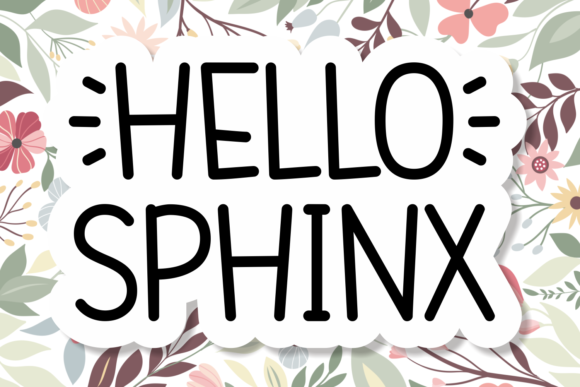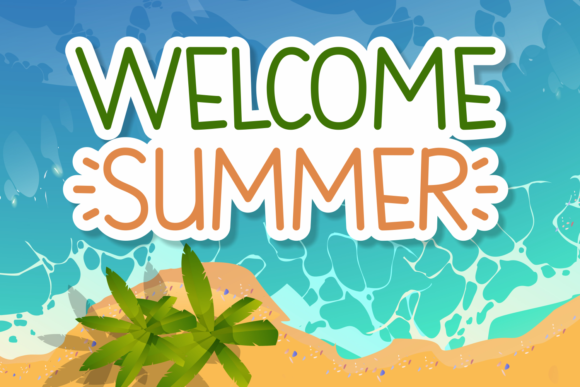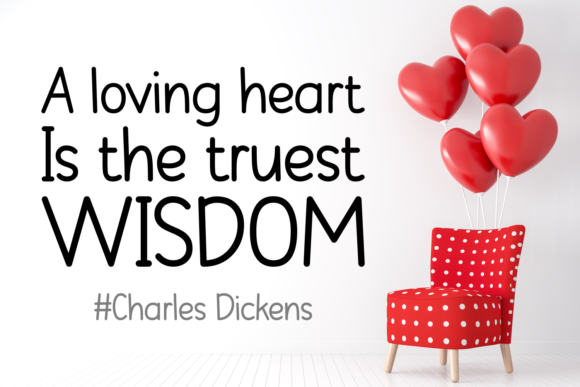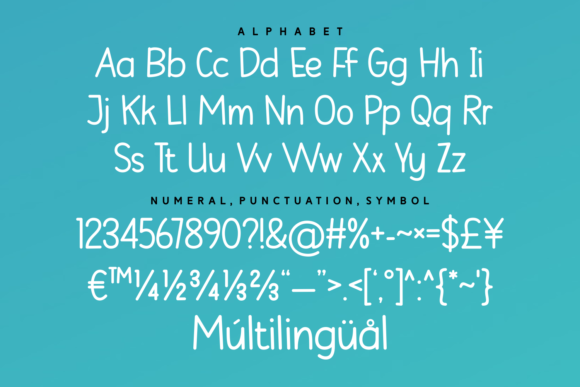
Hello Sphinx Font
About Hello Sphinx Font
Introducing “Hello Sphinx,” an exquisite handwritten font masterfully designed to become a true favorite. This font maintains its classy calligraphic influences while exuding a contemporary and fresh feel. Fall in love with “Hello Sphinx” and elevate your projects to the highest levels of elegance and sophistication.
With its impeccable design, “Hello Sphinx” captures the essence of classy calligraphy, bringing a timeless charm to your projects. The contemporary and fresh touch adds a modern twist, making it a versatile choice for a variety of creative endeavors.
Immerse your projects in the graceful beauty of “Hello Sphinx,” where each letter is meticulously crafted to strike the perfect balance between classic and modern aesthetics. Whether you’re working on invitations, branding materials, or any design that demands an exquisite touch, this font is crafted to enhance the visual appeal.
Consider “Hello Sphinx” as more than just a font; it’s a design companion that elevates your projects to new heights of sophistication. Let its handwritten elegance be the defining feature of your creative works, making a lasting impression on your audience.
In summary, “Hello Sphinx” is an exquisite handwritten font that effortlessly combines classy calligraphy with contemporary freshness. Fall in love with its timeless beauty and let it become a true favorite in your design toolkit, bringing a touch of sophistication to every project you undertake.